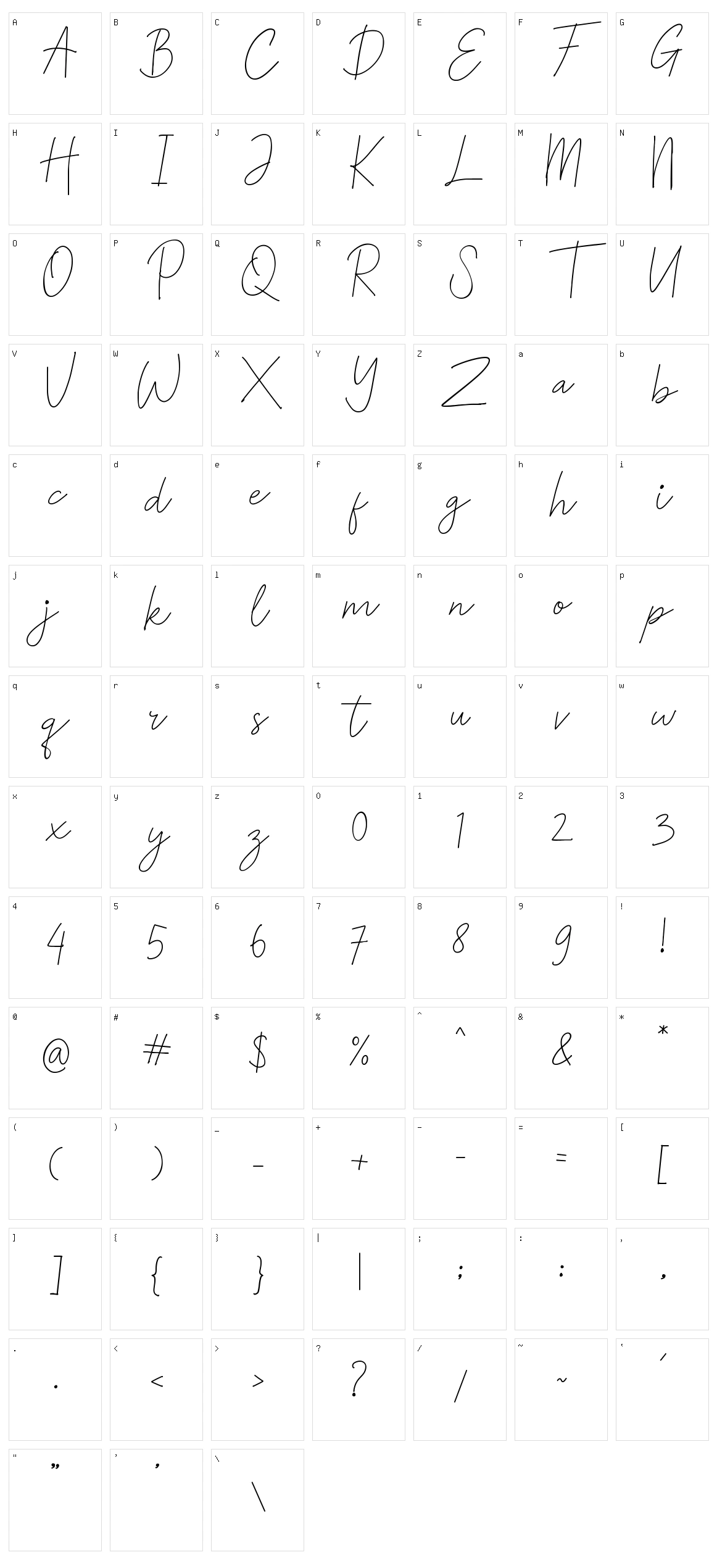
The free font Hunter Strike is carefully designed by Gagegostyle, showcasing a thoughtful balance of creativity and usability and falls under the Script font style. When you download the ZIP file, it contains only 25.13 KB of font files, making it lightweight and quick to download. Please review the license details below to understand permitted usage and distribution rights. If license information is not available, we recommend using this font for personal projects only or contacting the author directly for commercial usage permissions.